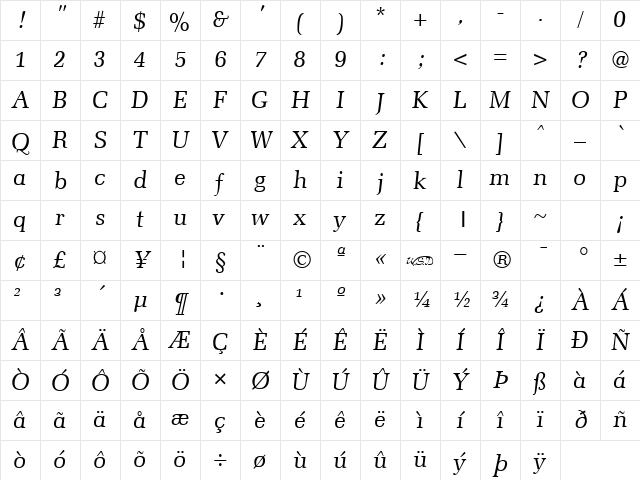
Memoir kursiv
Style: kursiv
Memoir Family
Complete Memoir kursiv glyph index. Displaying only characters natively supported by Memoir kursiv font.
Design Context for Memoir
Memoir is a composed and adaptable typeface that performs quietly and consistently across a wide range of design contexts. The slanted form adds forward momentum and visual energy.
Pro Tip: Use Memoir for emphasis, pull quotes, and subheadings where its slanted energy can add rhythm to the layout.